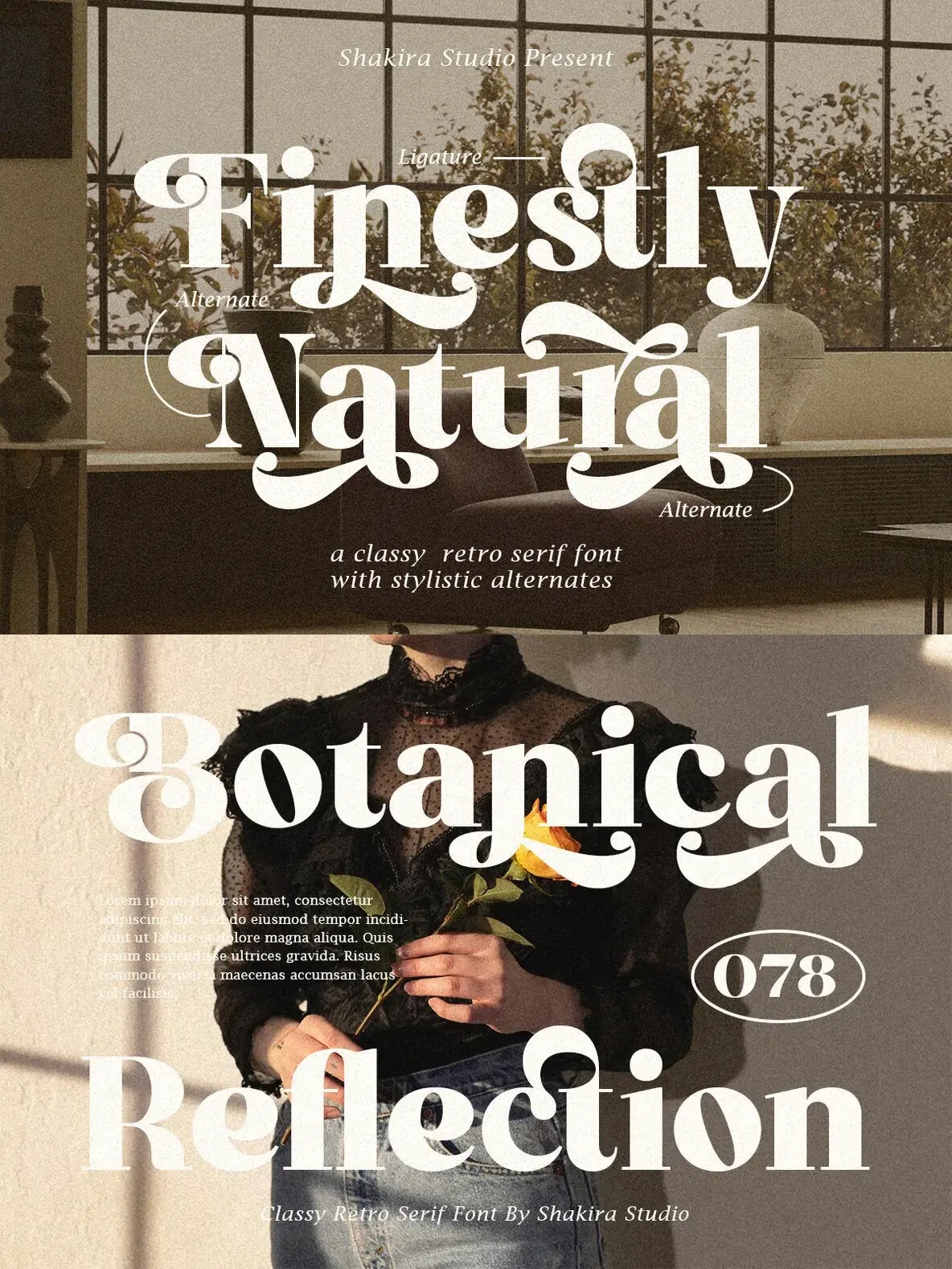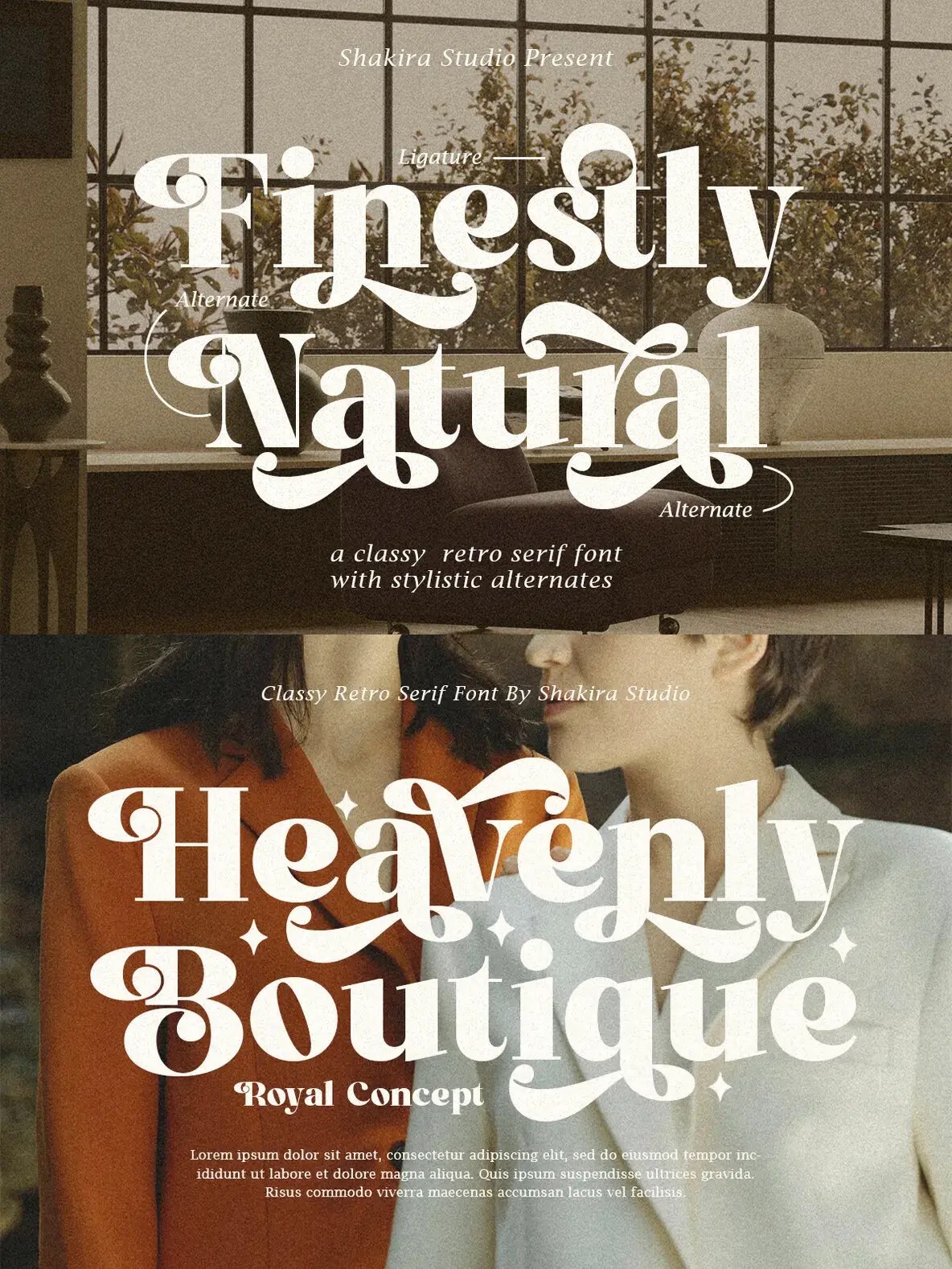
Finestly Natural Font
Infuse retro elegance into your designs with Finestly Natural, a
sophisticated Serif font featuring stylistic alternates and ligatures. SKU